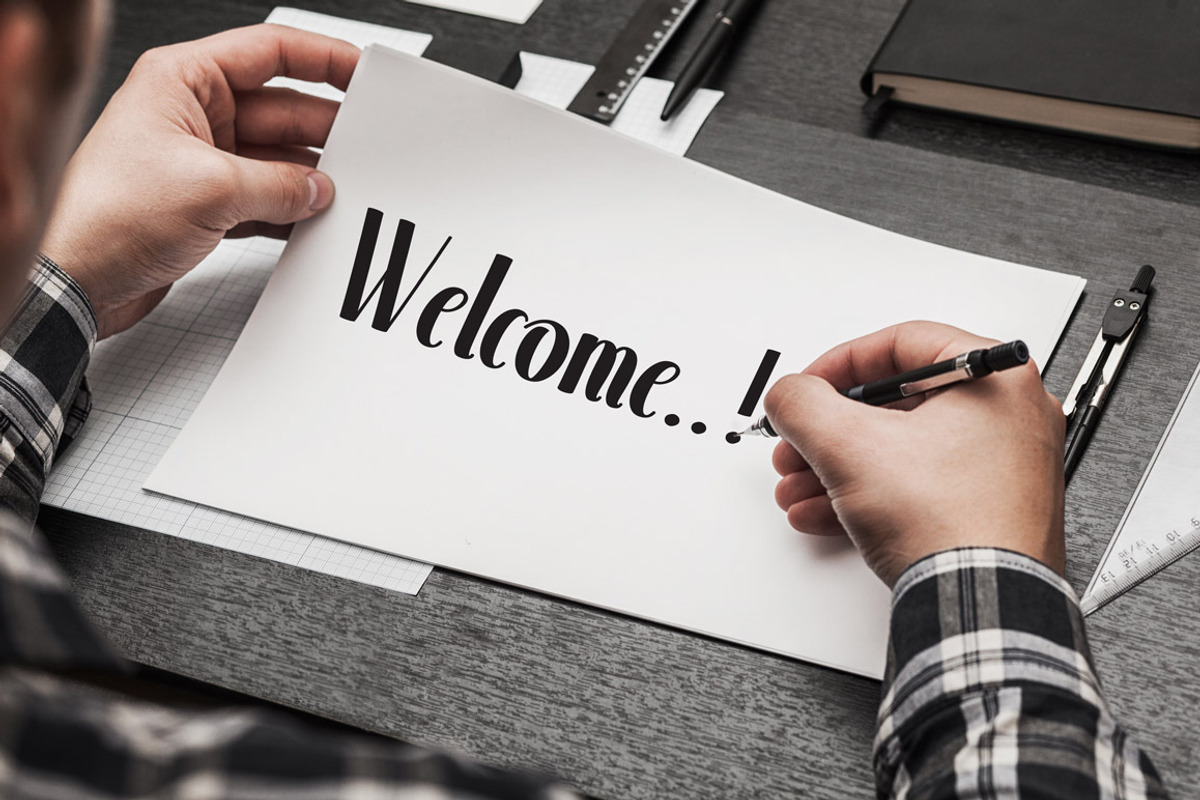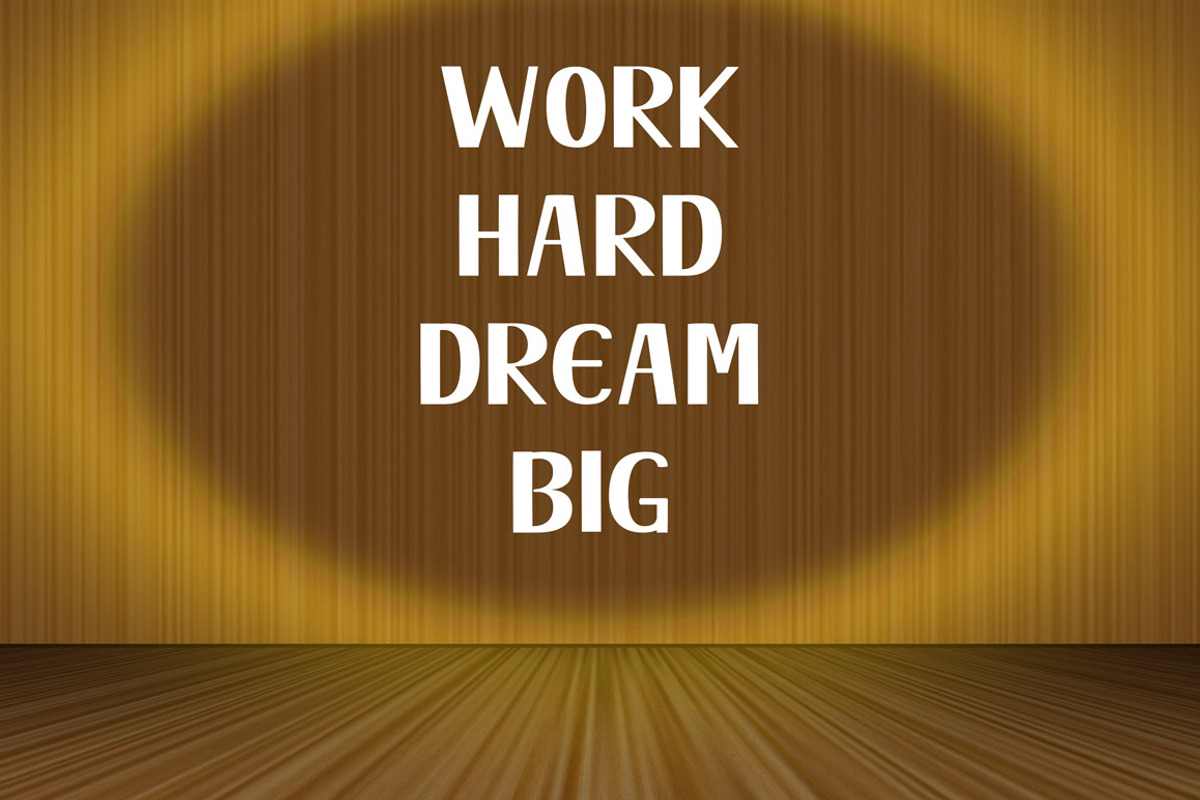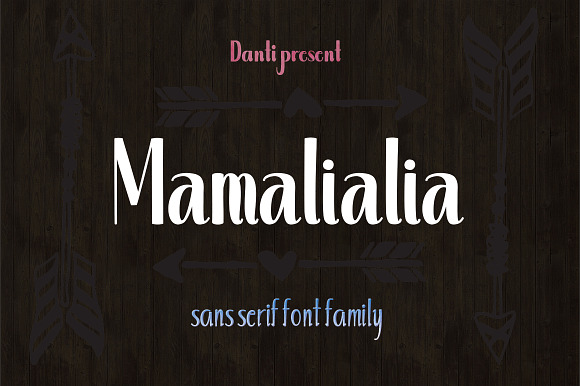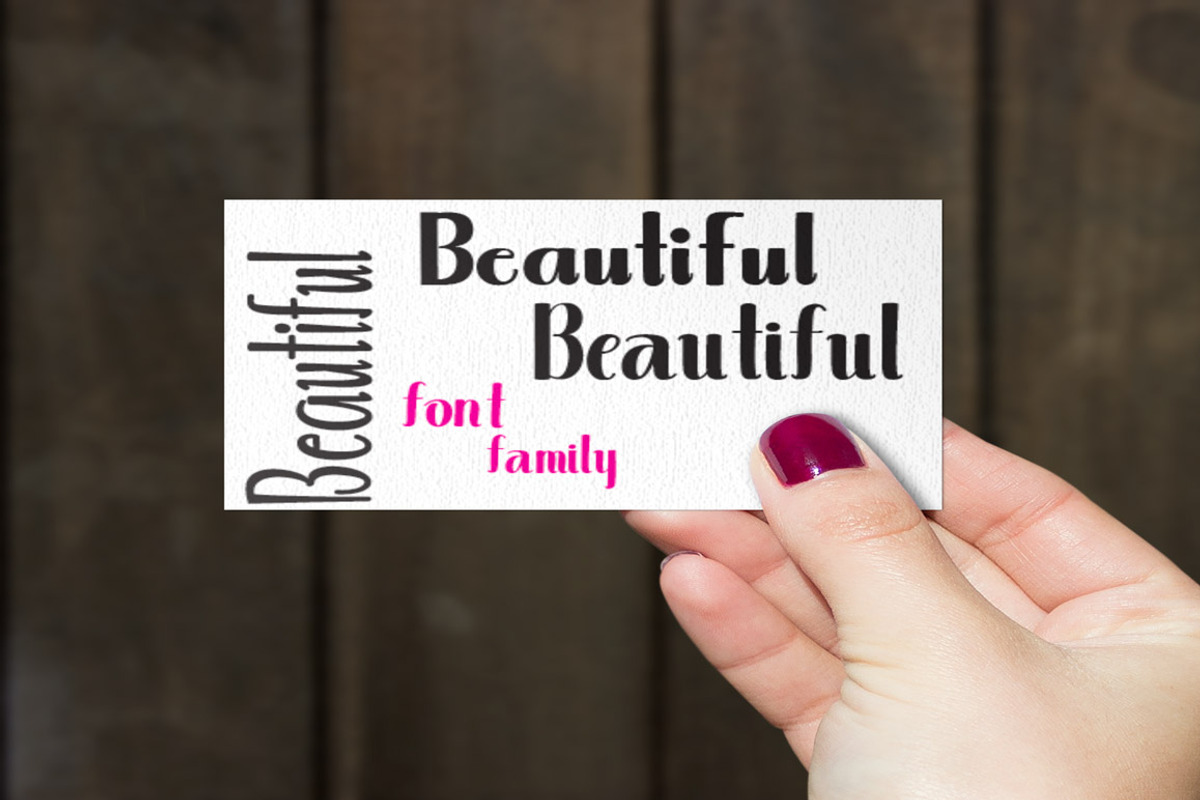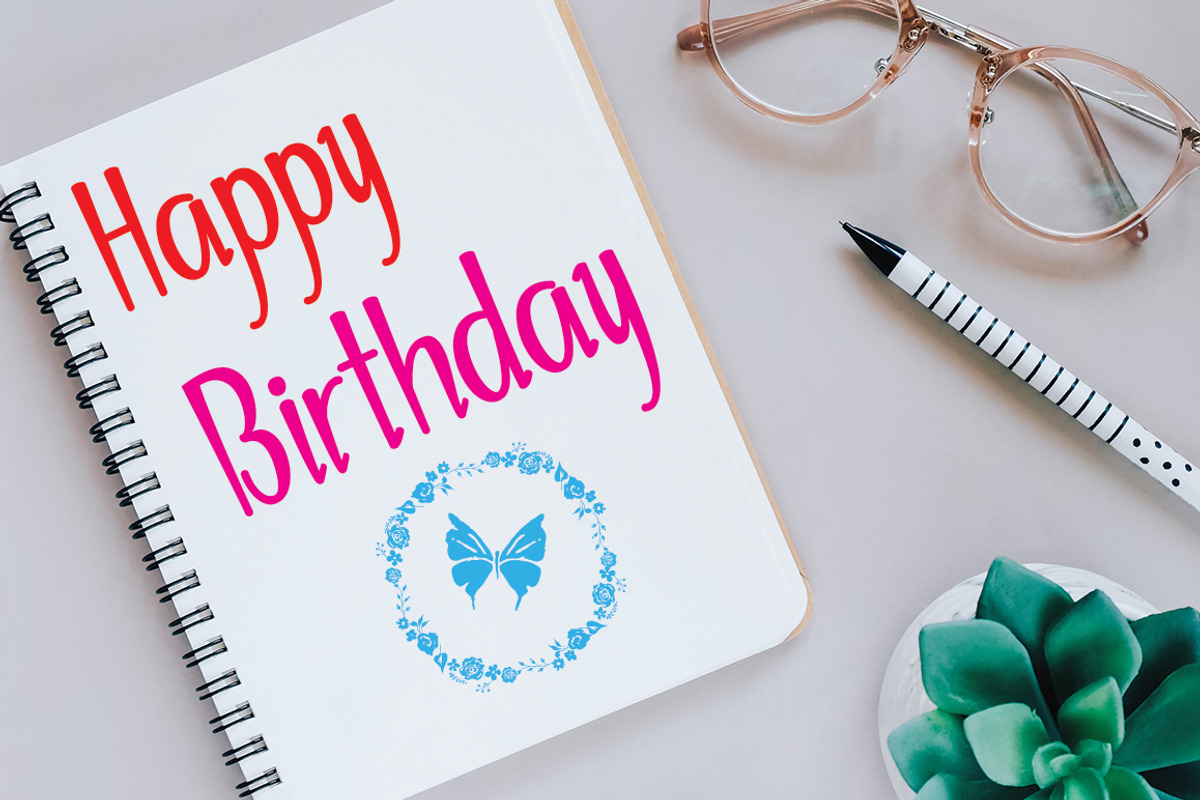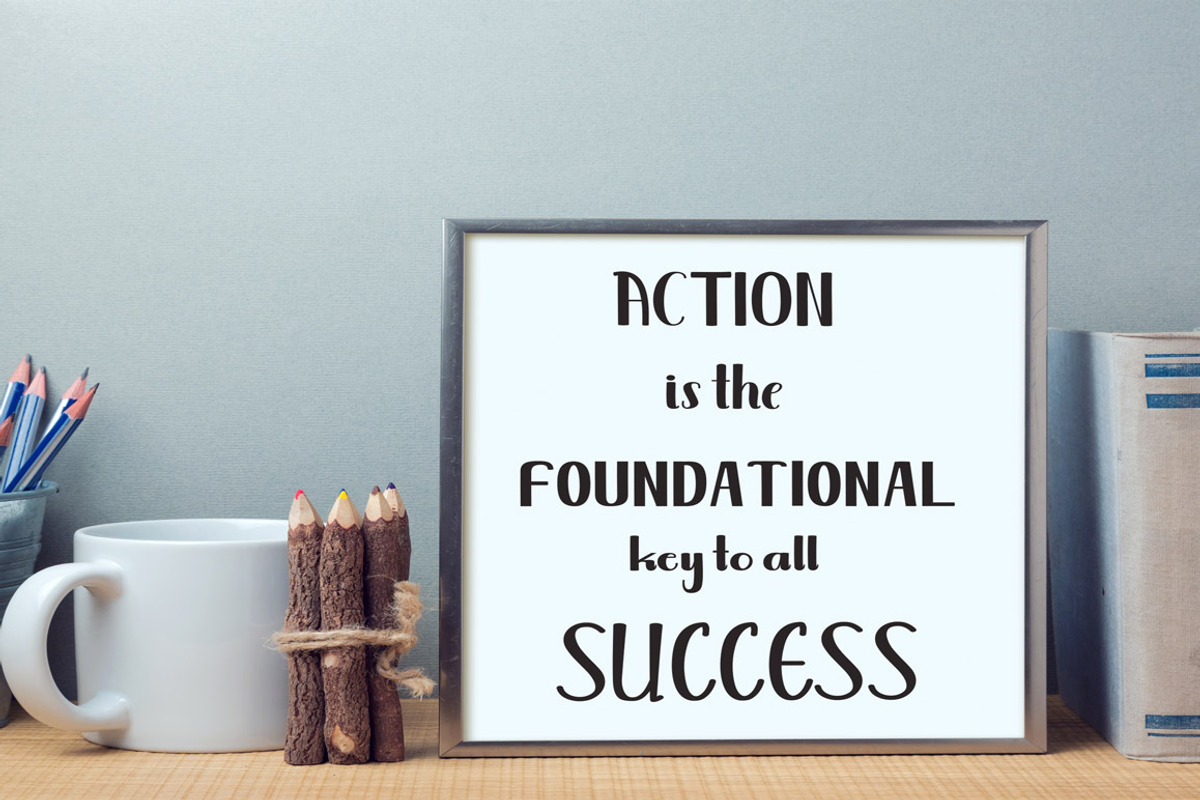
Mamalialia Font Family
Mamalialia Font Family is new sans serif font has a sleek typeface, font is very simple
and easy to manipulate: logo, slogan and made in advertising messages.
Mamalialia Font Family by danti fits naturally into Branding, posters, packaging, typography.